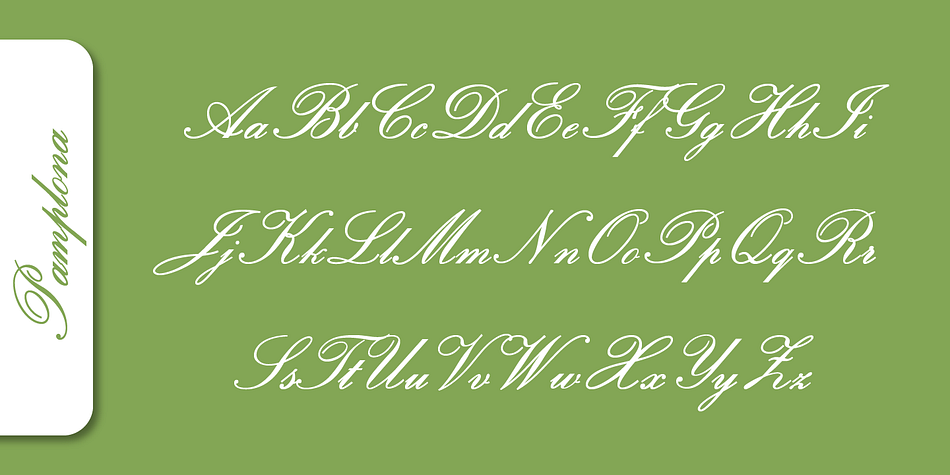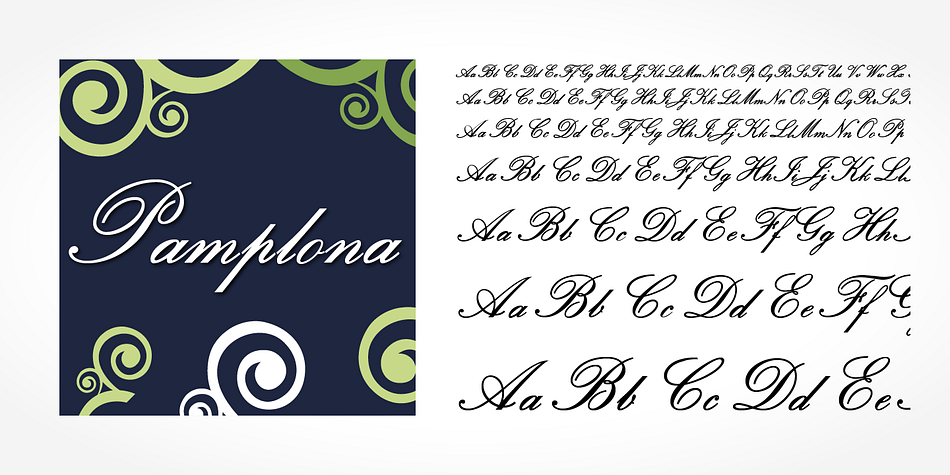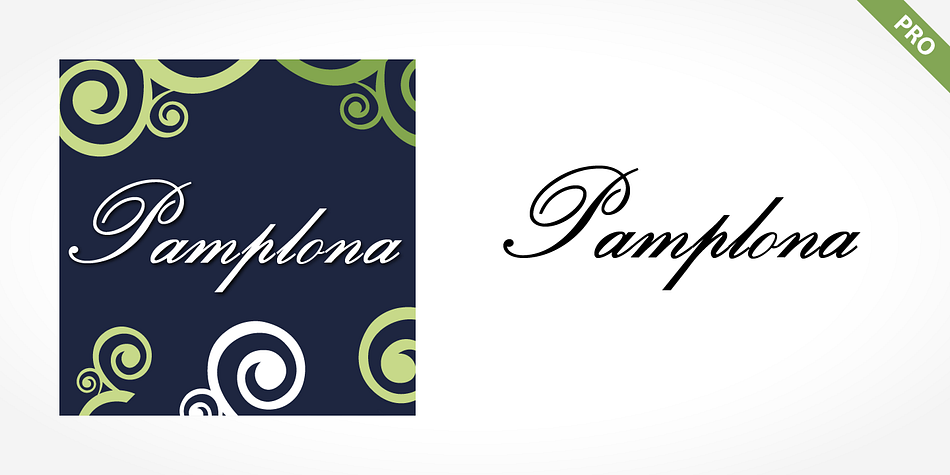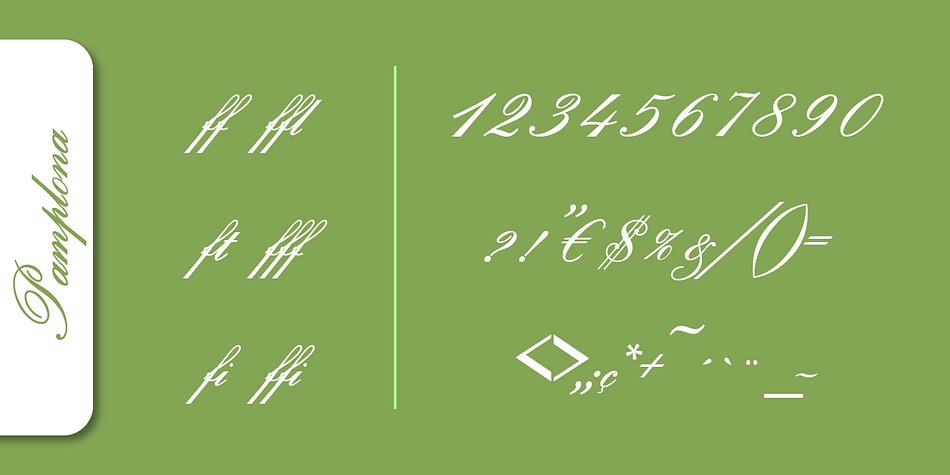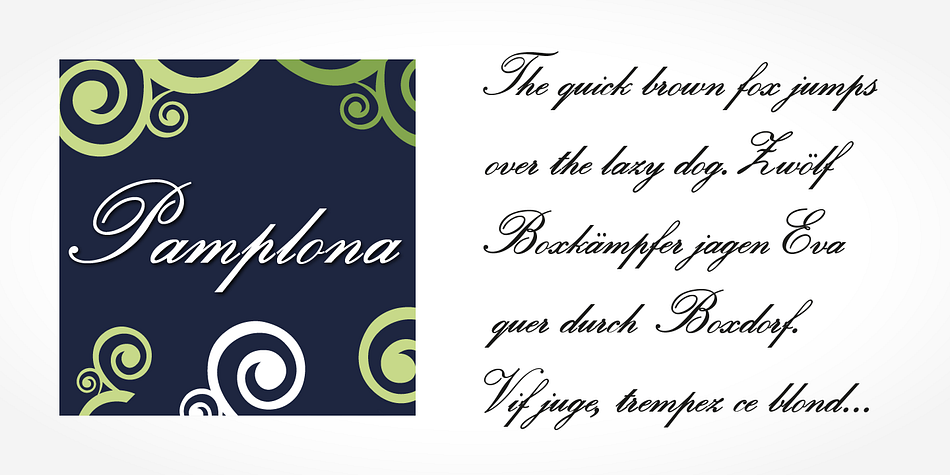
Pamplona Pro
Pamplona Pro is a script font published by SoftMaker.
Pamplona Pro is a formal English script from the 1920s. This typeface, inspired by centuries-old copperplate engravings, could add the perfect touch to any number of holiday cards. You could also make cute little names tags for all of your presents with Pamplona Pro